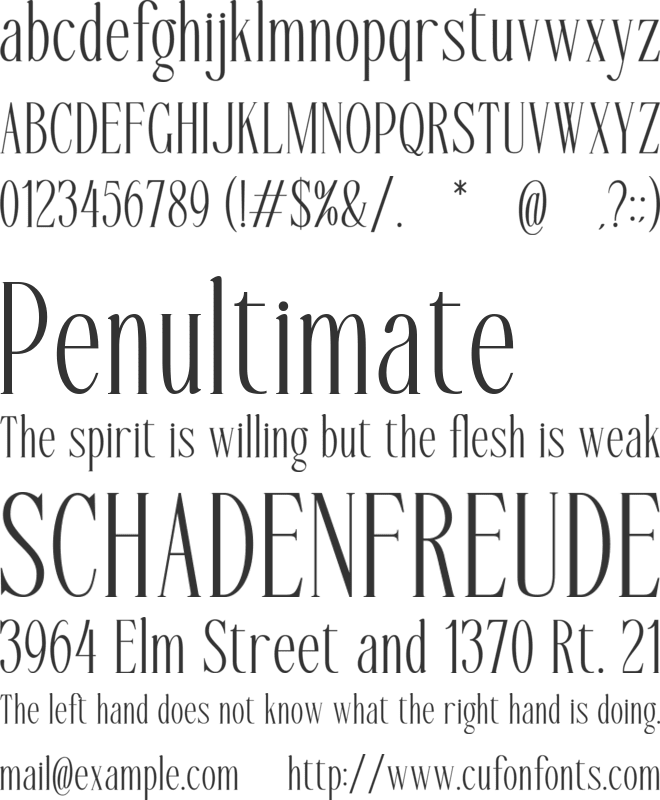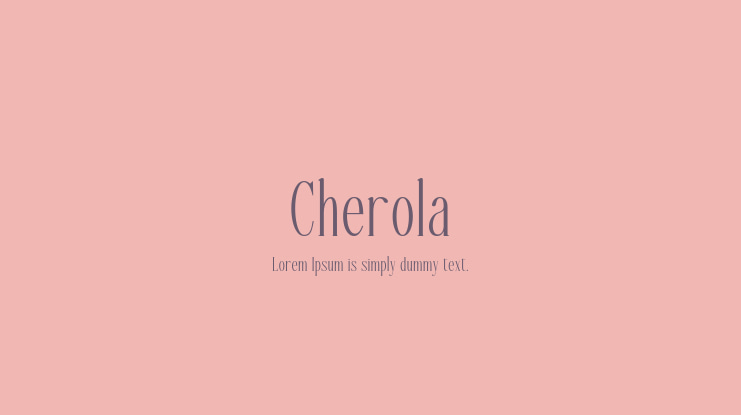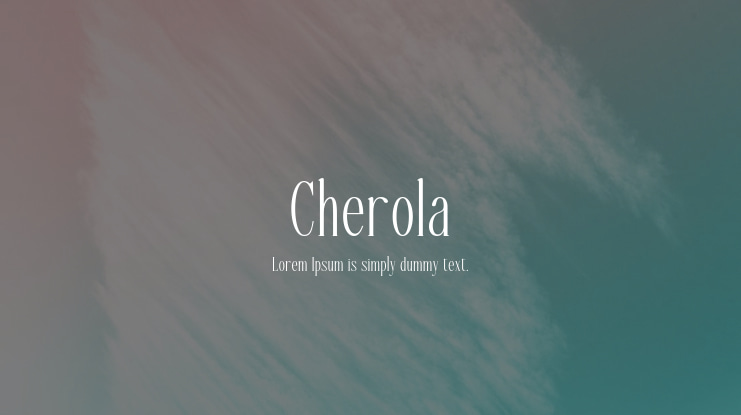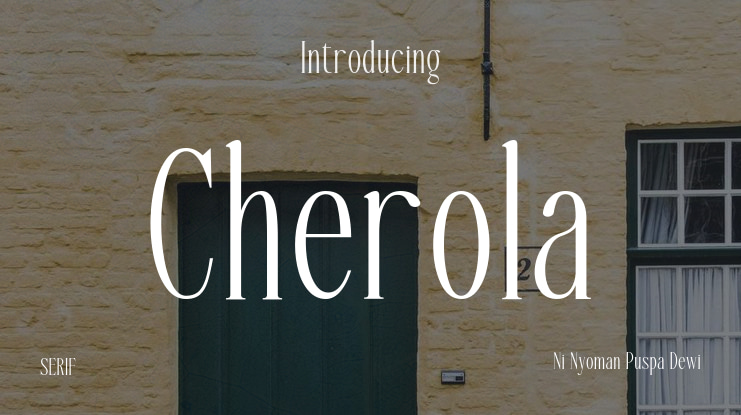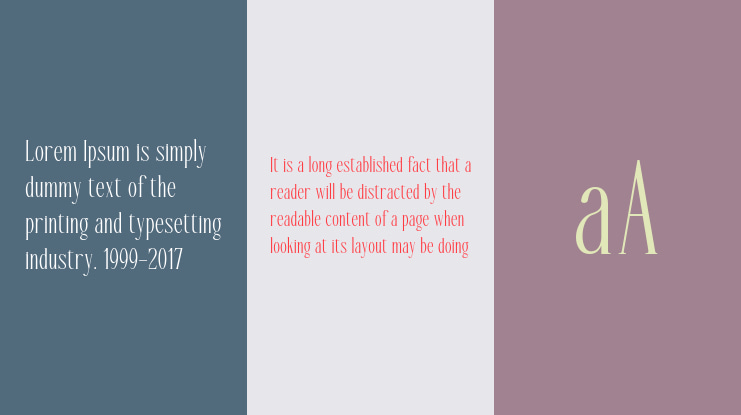
Cherola Font
Ni Nyoman Puspa Dewi
Introducing Cherola Typeface, a unique and elegant serif font that combines sophistication with an artistic flair. Designed for those who appreciate finer details, Cherola is perfect for adding a touch of luxury to your designs.